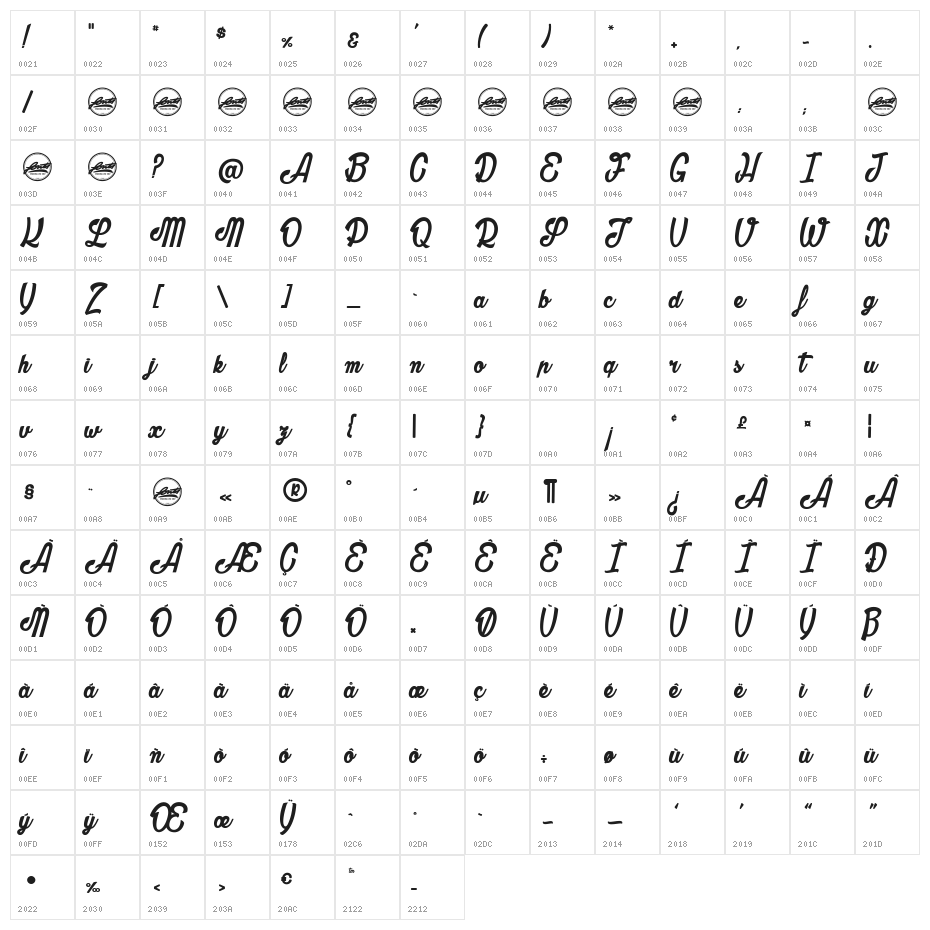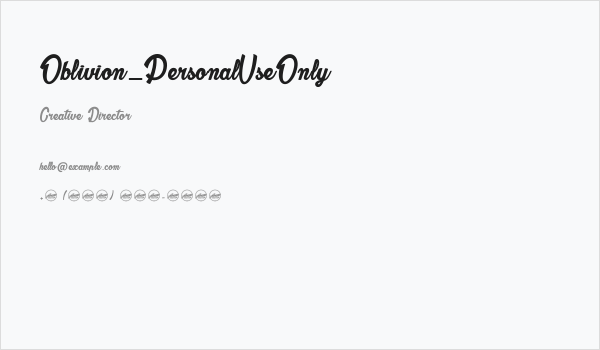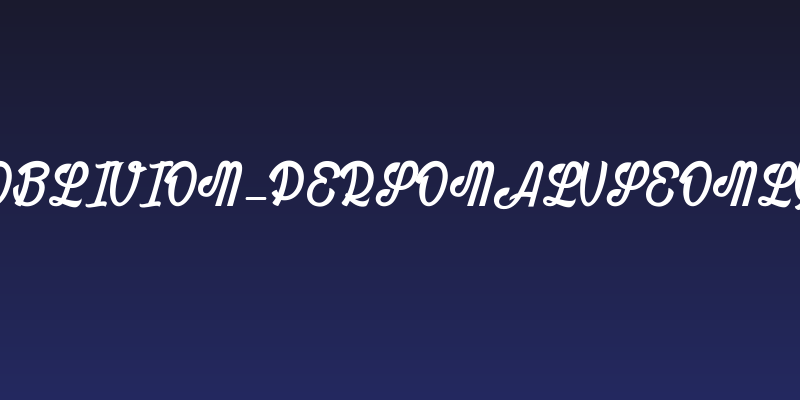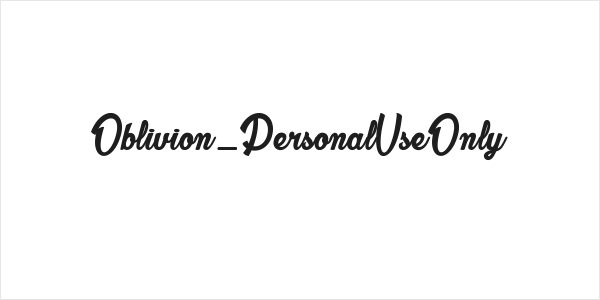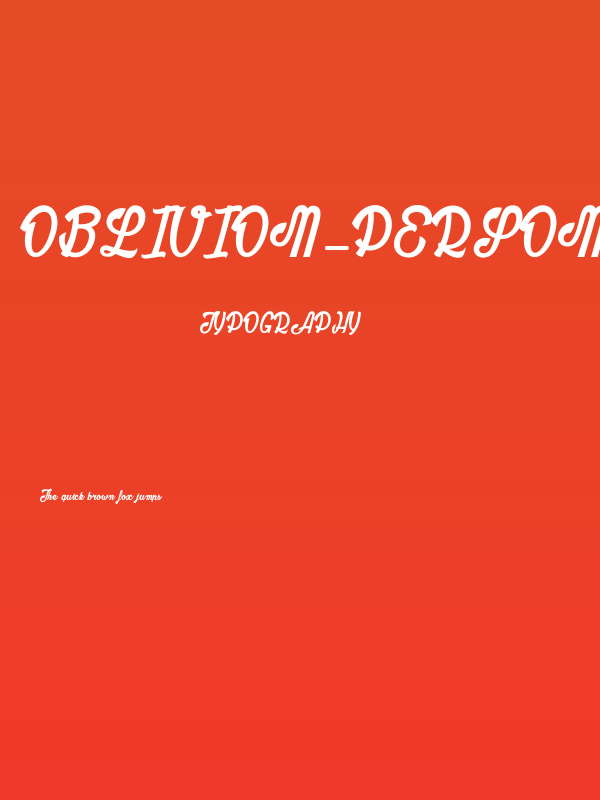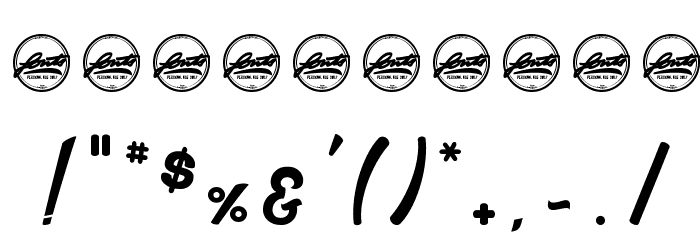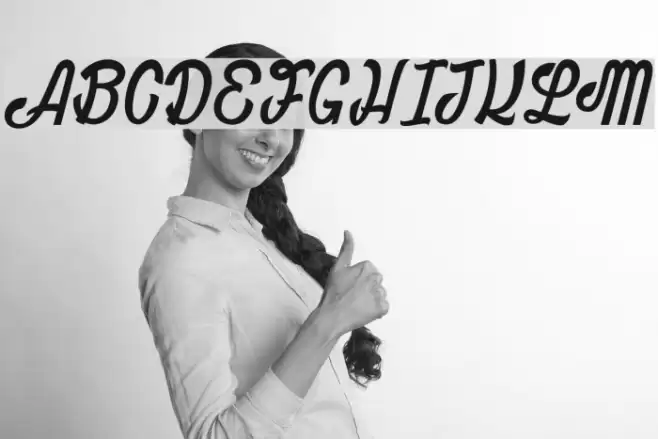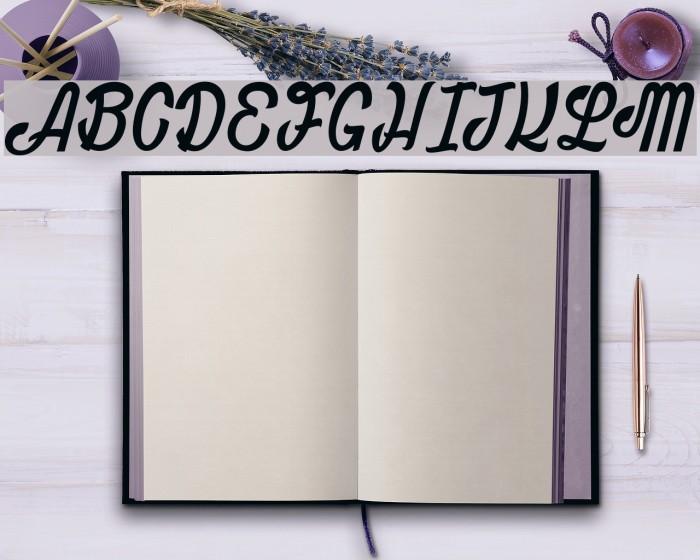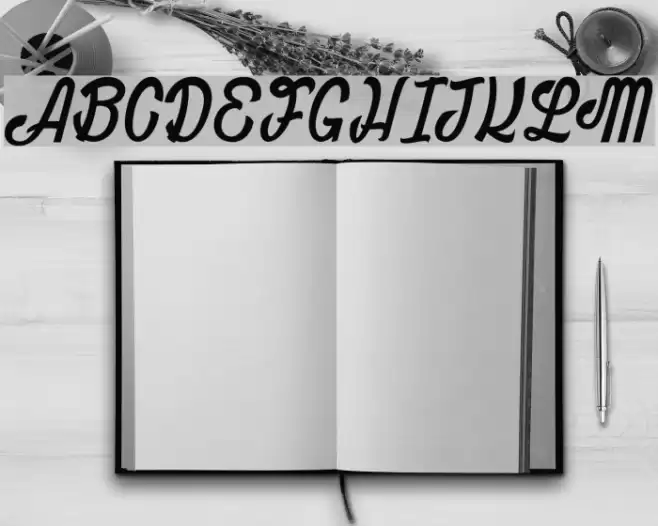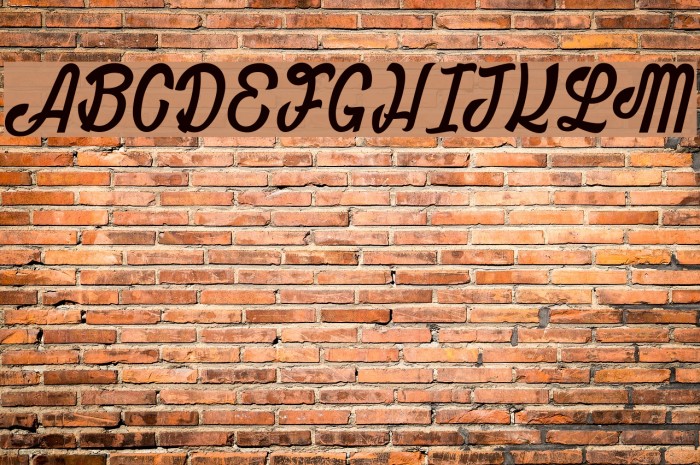
Oblivion_PersonalUseOnly Font
Oblivion_PersonalUseOnly Description
This font features a bold, cursive style with a flowing, handwritten appearance. The uppercase letters are elegantly crafted with smooth curves and a slight slant, giving them a dynamic and lively feel. The lowercase letters maintain the same fluidity, with consistent stroke widths that enhance readability. The numbers and special characters are designed to match the overall aesthetic, ensuring a cohesive look across all text. This font's distinctive style makes it suitable for creative and expressive projects.